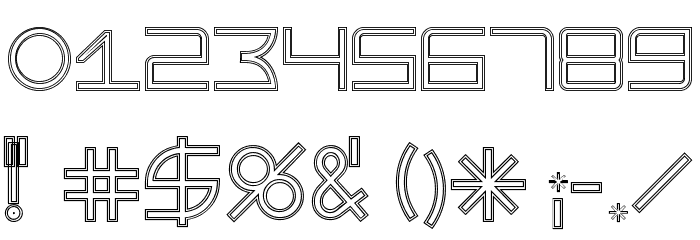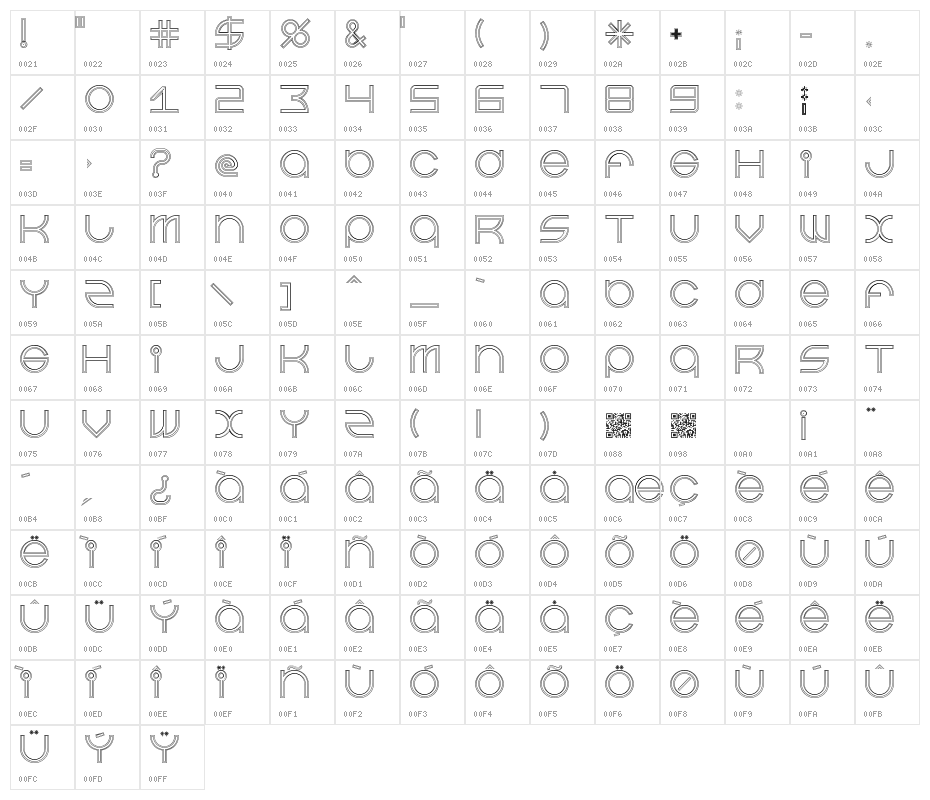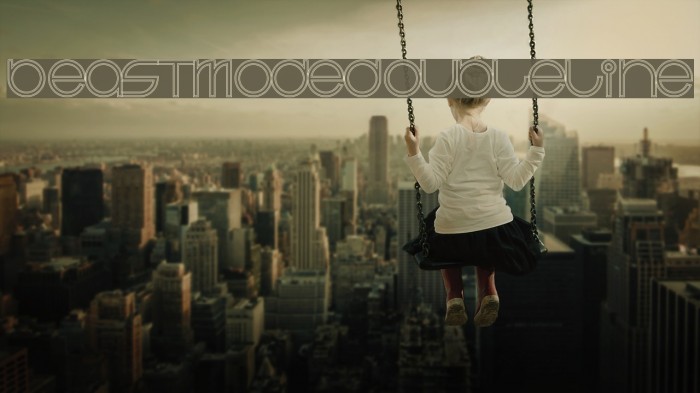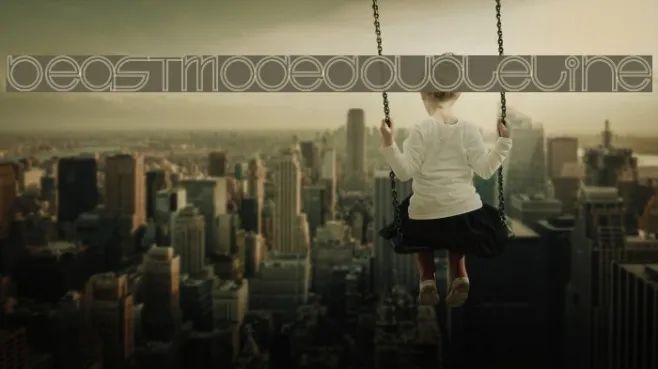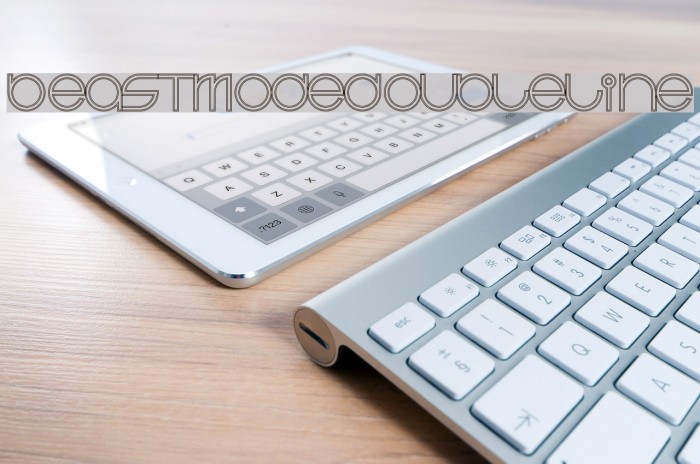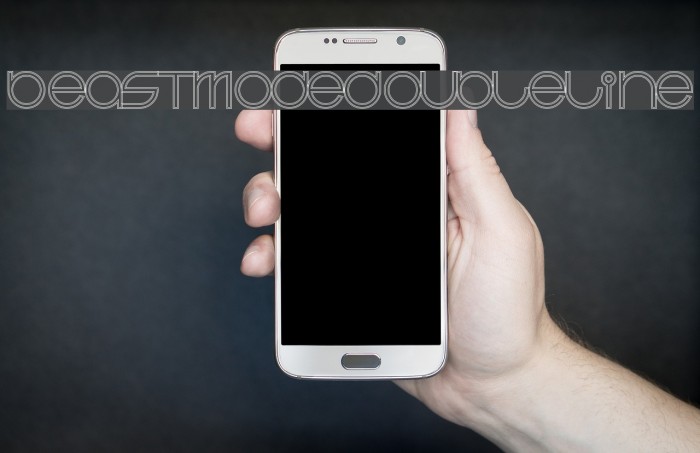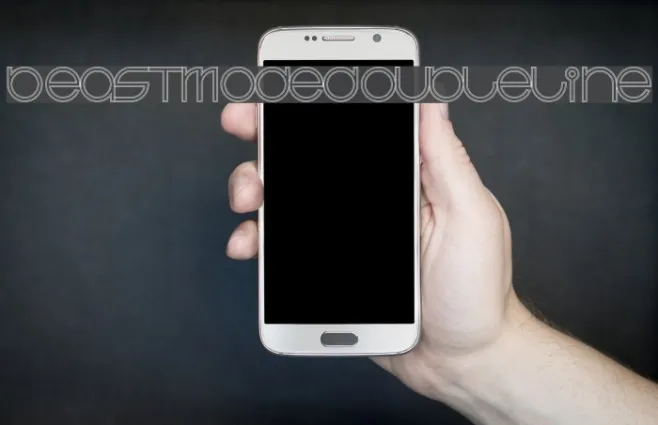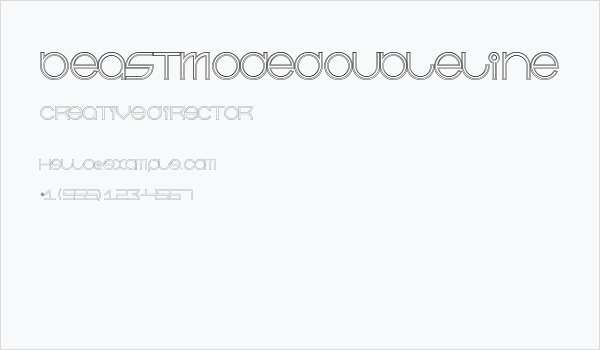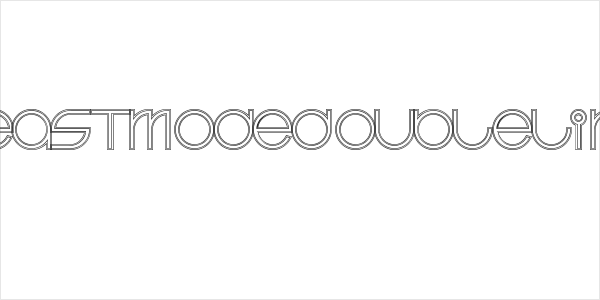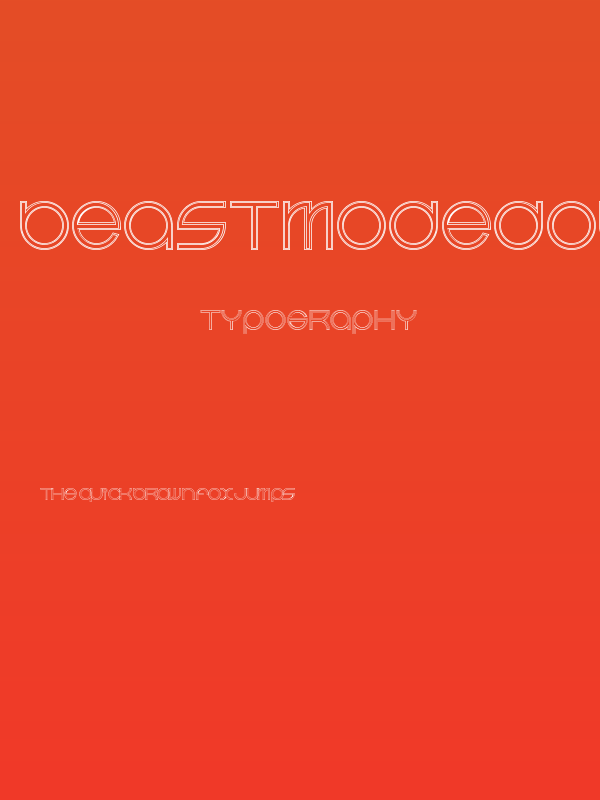
BeastModeDoubleline Font
BeastModeDoubleline Description
This font features a unique double-line style that creates a futuristic and geometric appearance. Each character is outlined with two parallel lines, giving it a distinct and modern look. The uppercase and lowercase letters maintain a consistent design, with rounded edges and a uniform height. The numerals and special characters follow the same double-line pattern, ensuring a cohesive visual identity across the entire set. This font's structure is both decorative and functional, making it suitable for a variety of creative applications.
| Proposed Projects | Ideal for branding, logos, posters, and digital media projects that require a modern and eye-catching typeface. |